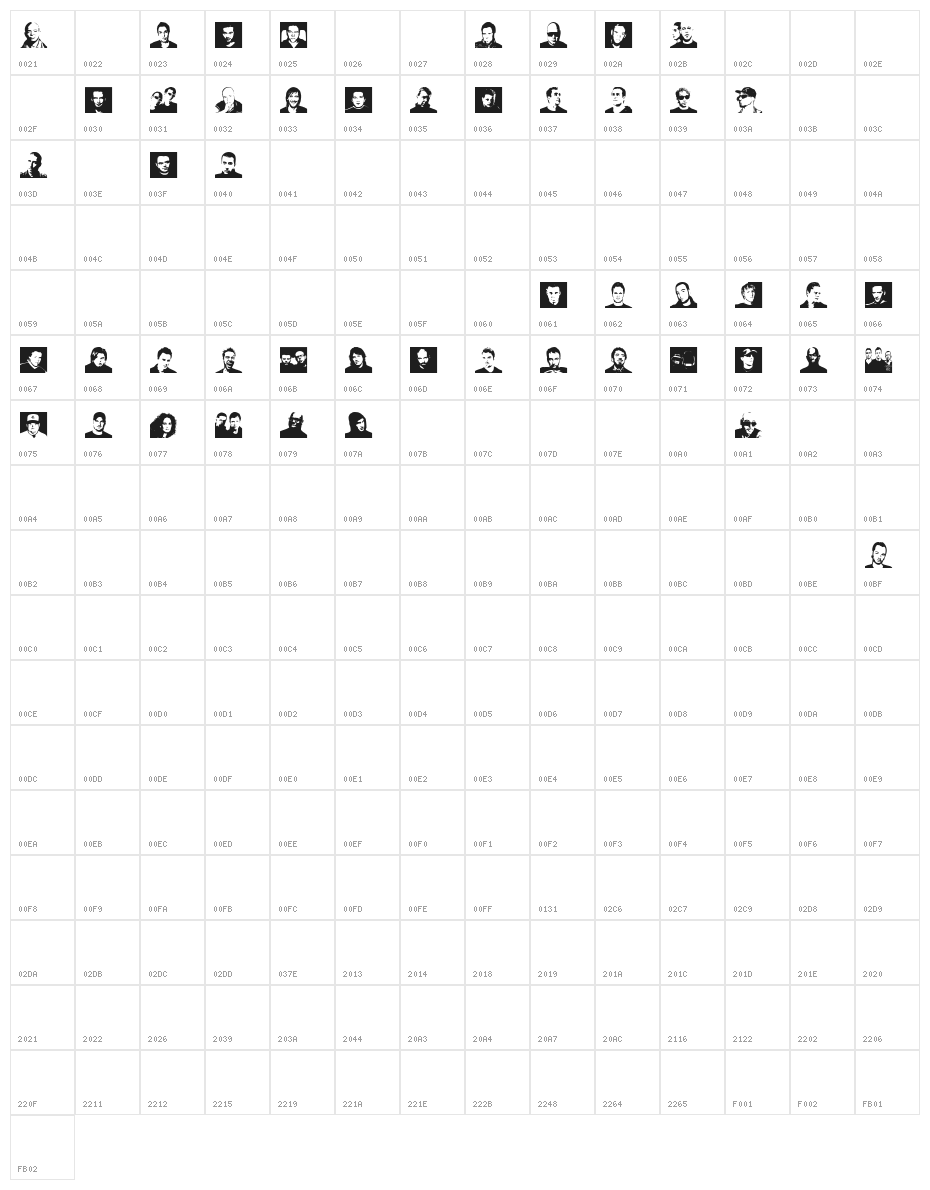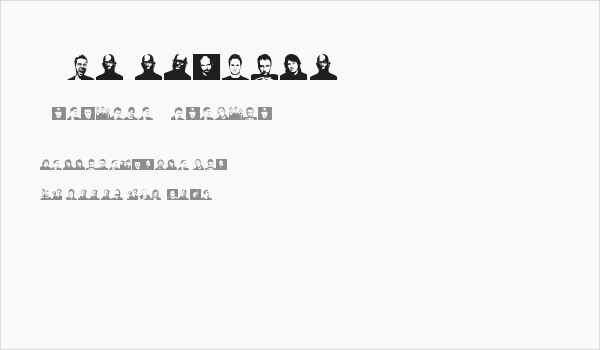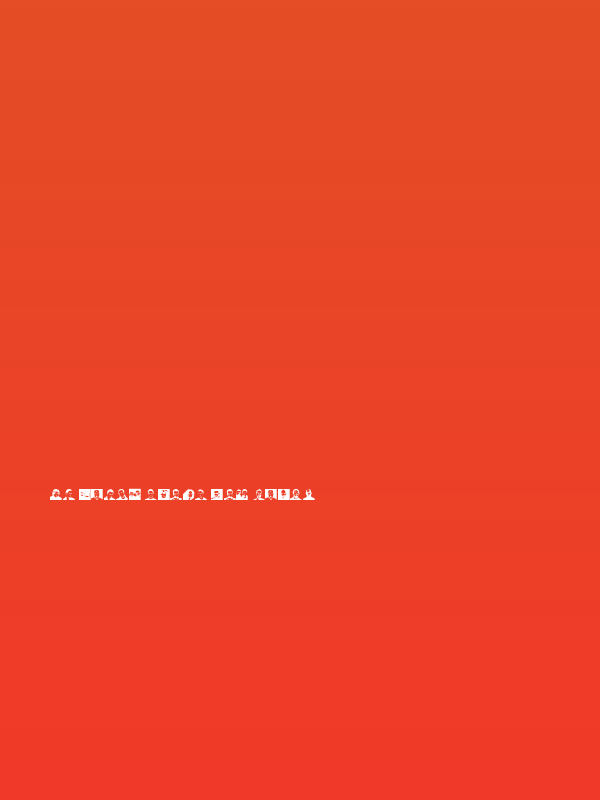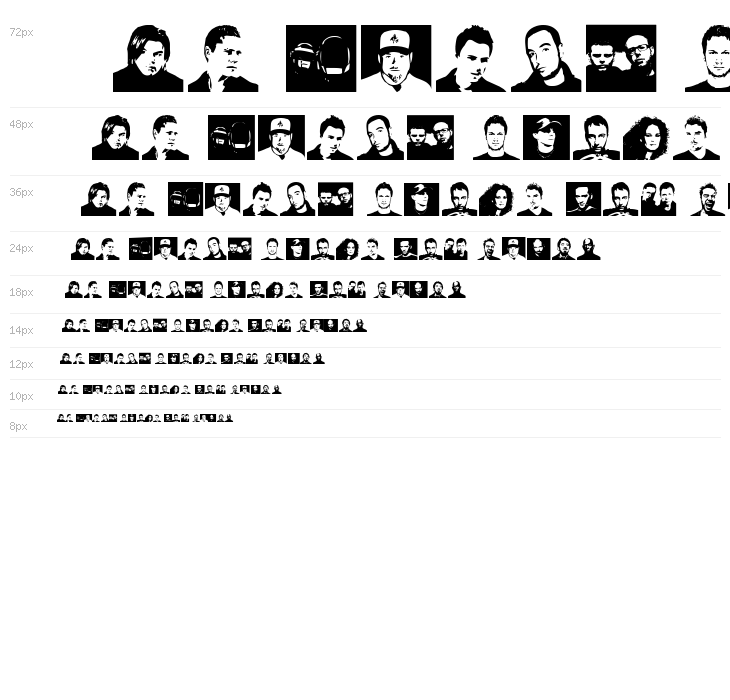
Djs symbols Font
Djs symbols Description
A decorative font consisting of black-and-white stencil-style portraits of various DJs, each character represented by a unique face or group, set within a square frame. The style is highly graphic, with strong contrast and minimal detail, focusing on facial features and head shapes.
| Overall Style | Decorative, Modern, Graphic |
| Use Case | Logos, Headlines, Posters, Themed Graphics |
| Proposed Projects | Music festival posters, DJ event flyers, album covers, themed party invitations, club branding. |